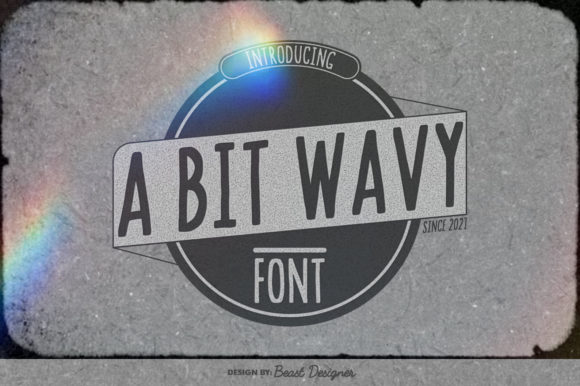
The Quest for the Perfect Font: How A Bit Wavy Stole the Show
I’ll never forget the time I was working on a vintage-themed craft project, and I just couldn’t find the right font to match the aesthetic. I scoured the internet, tried out dozens of fonts, but nothing seemed quite right. That was until I stumbled upon A Bit Wavy, a simple, vintage-styled sans serif font that instantly elevated my project to the next level. In this article, I’ll share my experience with A Bit Wavy, and explore its features, uses, and alternatives.
An Honest Review of A Bit Wavy
- ✨ Simple yet distinctive: A Bit Wavy has a unique charm that sets it apart from more generic sans serif fonts.
- ✅ Highly versatile: This font can be used in a wide range of projects, from crafting and DIY to graphic design and digital art.
- 💡 Easy to read: Despite its vintage vibe, A Bit Wavy is surprisingly legible, even at smaller sizes.
While A Bit Wavy is an excellent font, it’s not without its quirks. For example:
- 🤔 Limited OpenType features: A Bit Wavy doesn’t have a wide range of OpenType features, which might limit its use in certain design contexts.
- ⚠️ Not ideal for body text: While A Bit Wavy is easy to read, it’s not the best choice for long blocks of body text due to its vintage-inspired design.
The Story Behind A Bit Wavy
A Bit Wavy was designed with the creative hobbyist in mind. Its creator wanted to craft a font that was both easy to read and visually interesting, with a unique charm that would set it apart from more generic fonts. Inspired by vintage signs and posters, A Bit Wavy is the perfect blend of classic and modern design.
| Font Name | A Bit Wavy Font |
| Author | Beast Designer |
Q: What makes A Bit Wavy so special?
A: A Bit Wavy’s unique blend of simplicity and vintage charm makes it a standout font.
Q: Is A Bit Wavy suitable for body text?
A: While A Bit Wavy is easy to read, it’s not ideal for long blocks of body text due to its vintage-inspired design.